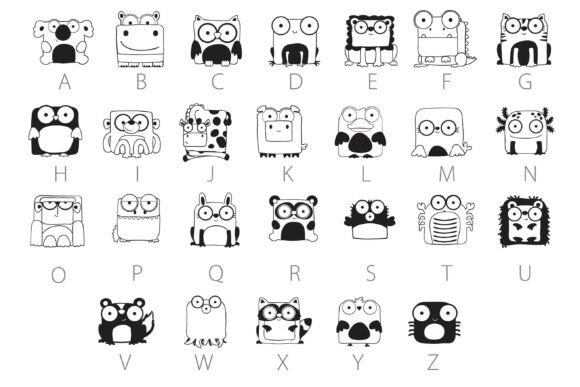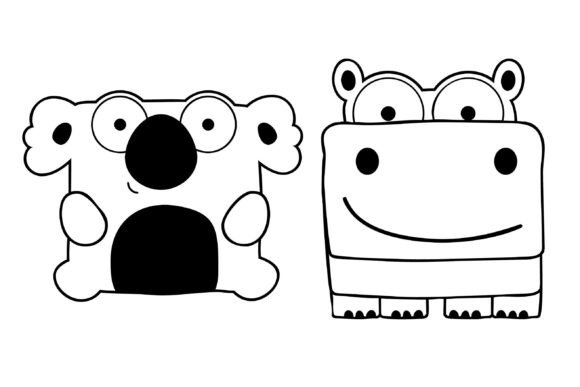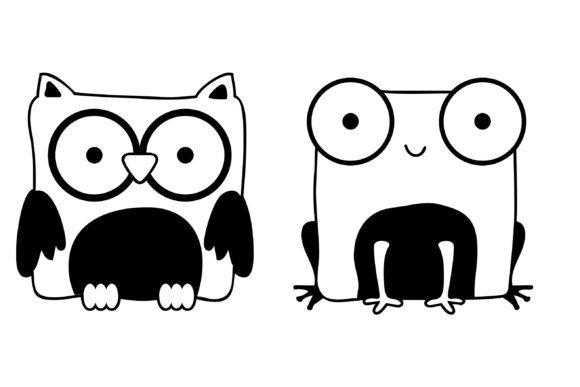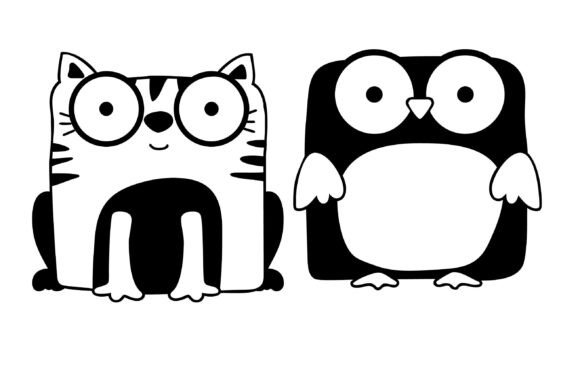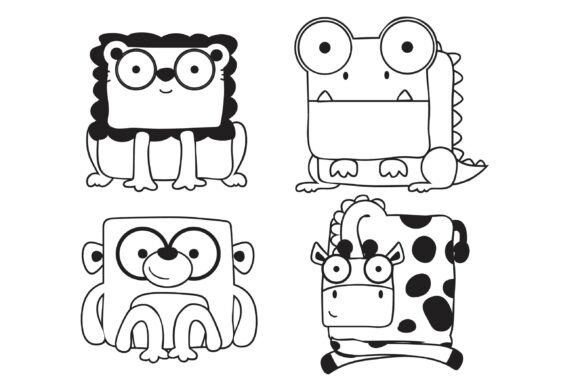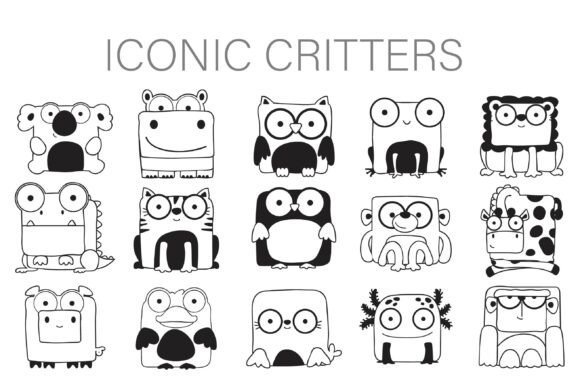
Unleashing a World of Whimsy: The Power of Iconic Critters Dingbats Font
Have you ever been brainstorming a new design project, and suddenly, a playful idea strikes? Maybe it’s a children’s book cover, a nursery wall decal, or a social media campaign for a youth-oriented brand. Whatever the project, a spark of creativity can be the perfect catalyst to get the design juices flowing.
That’s where the Iconic Critters Dingbats Font comes in – a delightful collection of lovable, boxy animals designed to add a touch of whimsy and personality to any layout. This charming font is an exceptional choice for designers looking to create engaging, child-friendly content that radiates a friendly, modern aesthetic. With its clean, bold-line doodle style and high-contrast black and white details, the Iconic Critters Dingbats Font is sure to bring a sense of handcrafted joy to every design project.
Whether you’re working on a children’s educational material or a playful brand campaign, the Iconic Critters Dingbats Font is an invaluable addition to any designer’s toolkit. Its versatility, charm, and geometric appeal make it a must-have for any creative project looking to stand out from the crowd.
Key Features of Iconic Critters Dingbats Font
• Font Family: Iconic Critters Dingbats, a unique dingbats font featuring adorable animal designs.
• Unique Characteristics: The font features a collection of over 1,000 unique dingbats, including animals, objects, and symbols, making it perfect for designers and artists looking for a creative solution.
• Scalability: The font is designed to be highly scalable, making it suitable for use in various design applications, from small icons to large-scale graphics.
Designer Review: Iconic Critters Dingbats Font
I recently had the chance to work with the Iconic Critters Dingbats Font, and I have to say, it was a unique experience. Here are my honest thoughts on what worked well and what didn’t.
• Eclectic and playful design: The font is perfect for adding a touch of whimsy to your projects. The critters and symbols are intricately designed and will surely bring a smile to your face.
• Wide range of characters: The font includes a vast array of critters, animals, and symbols, making it ideal for designers who need to convey a lot of information in a creative way.
• Great for kids’ content: The playful design and cute critters make this font perfect for children’s books, educational materials, and other kid-friendly projects.
• Not ideal for serious or formal projects: While the font is perfect for playful projects, it may not be the best choice for more serious or formal content, such as business reports or news articles.
• Some characters may be hard to read: While the font is playful, some of the characters may be difficult to read, especially in smaller sizes.
The Iconic Critters Dingbats Font is a fun and creative addition to any designer’s toolkit. While it may not be suitable for every project, it’s perfect for designers who need to add a touch of whimsy and personality to their work. Just be sure to use it sparingly and in the right context.
Tips: Use the Iconic Critters Dingbats Font for whimsical and playful designs, such as children’s party invitations or social media graphics.
Tips: Use the Iconic Critters Dingbats Font for creative and unique designs, such as custom logos or greeting cards.
Tips: Use the Iconic Critters Dingbats Font for presentations, reports, or documents that require a playful and attention-grabbing tone.
The Iconic Critters Dingbats Font is perfect for:
1. Children’s products and marketing materials.